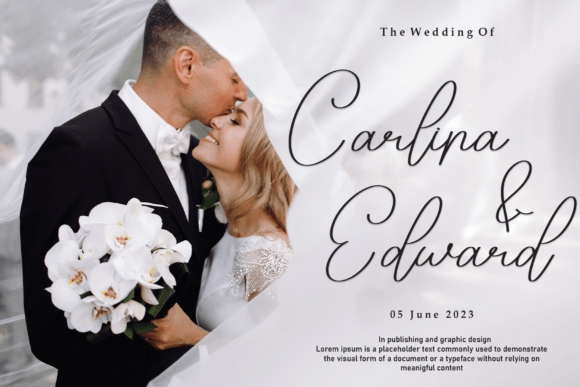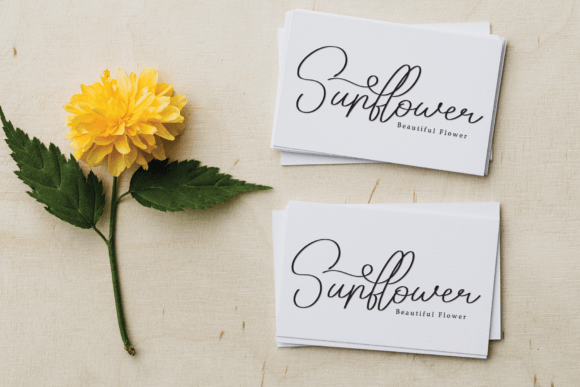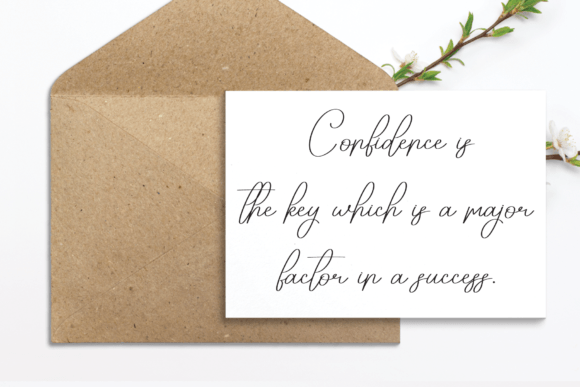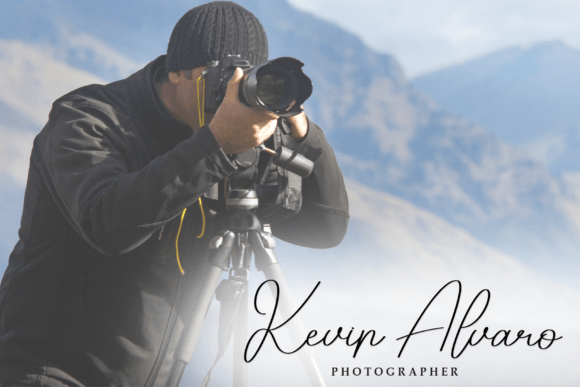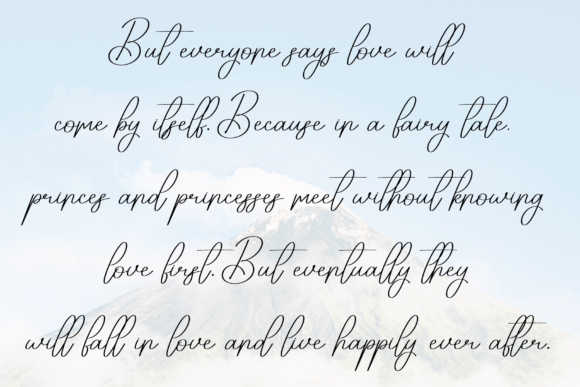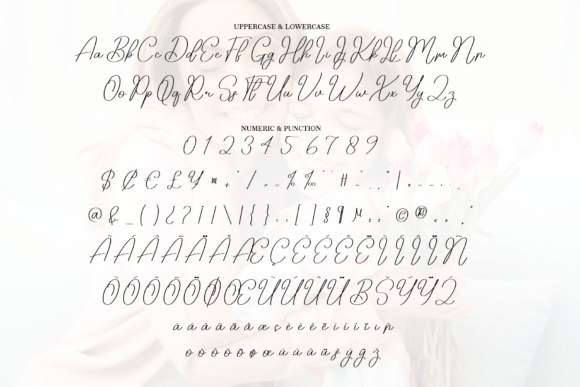
The Elegant Charm of Daughter Font: A Designer’s Delight
I’ll never forget the time I was working on a wedding invitation project, and my client asked for a font that exuded elegance and sophistication. I scoured the internet, tried out countless fonts, but nothing seemed quite right. That was until I stumbled upon the Daughter font. It was love at first sight! 💕 The delicate and elegant script font was perfect for the project, and I’ve been hooked ever since.
An Honest Review of Daughter Font
- 💫 Delicate and elegant script style, perfect for creating a sophisticated look
- ✅ Highly versatile, suitable for a wide range of projects, from wall displays to social media posts
- 🎨 Beautifully crafted, with a unique and distinctive character
- 👍 Easy to read, even in smaller sizes
- 🤔 May not be the best choice for body text, as it’s a script font and can be difficult to read in large blocks
- ⚠️ Some users may find the font a bit too delicate, and it may not display well on low-resolution screens
- Experiment with the font’s OpenType features, such as glyphs and stylistic alternates, to add more personality to your text
The Backstory of Daughter Font
The Daughter Font was designed by a talented type designer who wanted to create a font that captured the elegance and sophistication of handwritten script. Inspired by classic calligraphy and modern typography, the font was crafted with love and attention to detail. The designer’s goal was to create a font that would be perfect for creative projects, from wedding invitations to social media posts.
| What is the Daughter Font best used for? | The Daughter Font is perfect for projects that require a delicate and elegant script style, such as wedding invitations, social media posts, logos, and product packaging. |
| Is the Daughter Font suitable for body text? | No, the Daughter Font is a script font and may not be the best choice for body text, as it can be difficult to read in large blocks. |